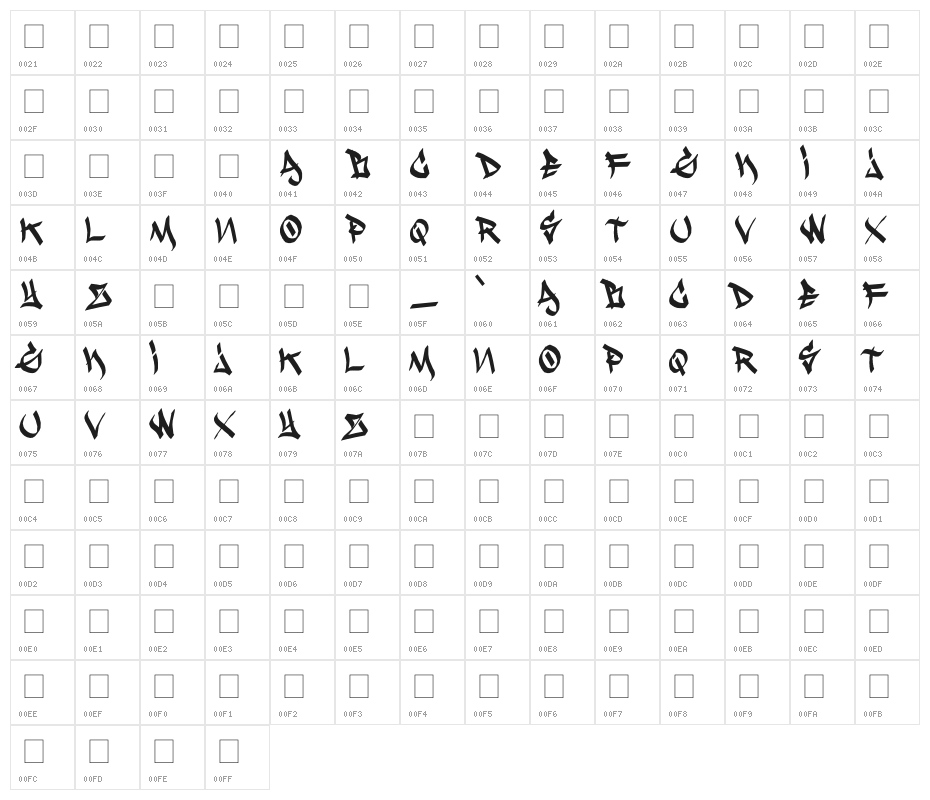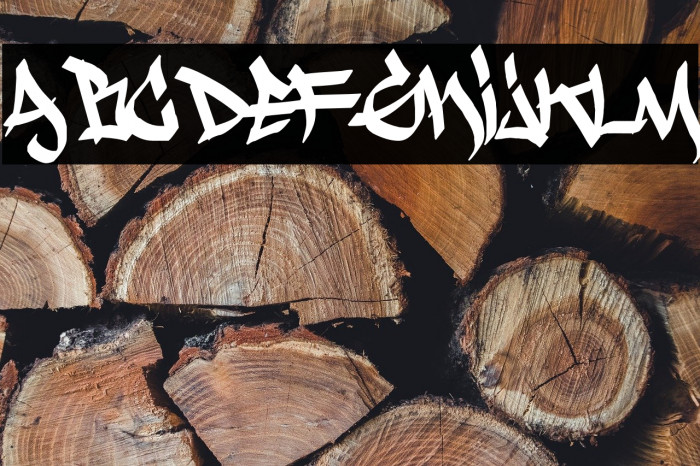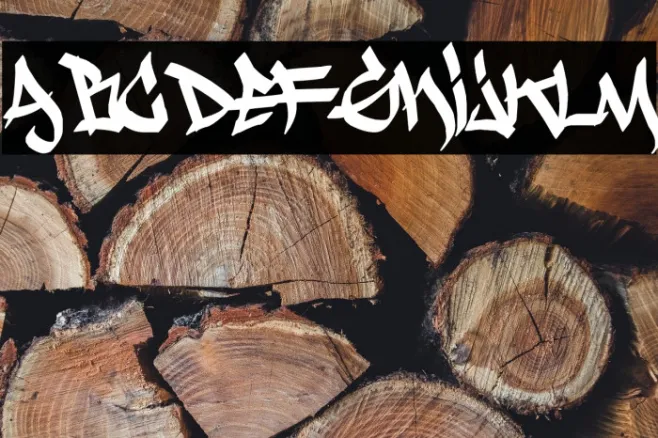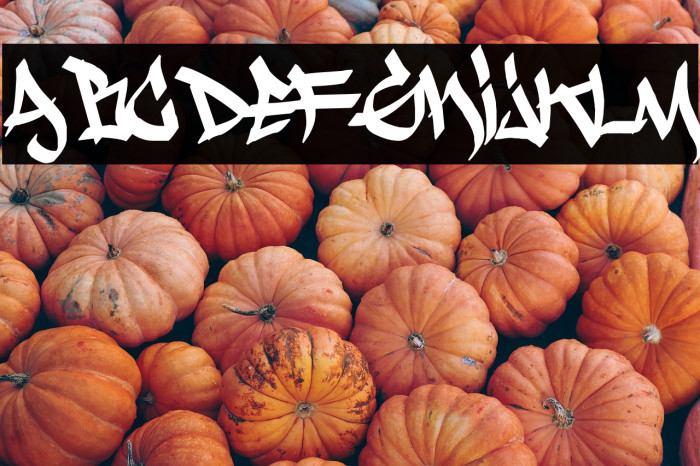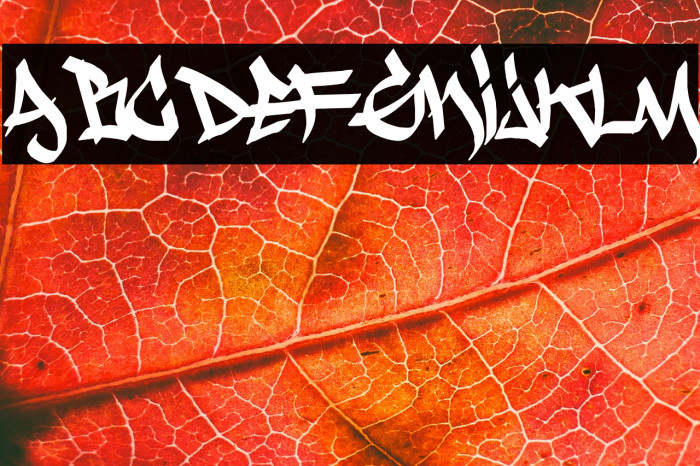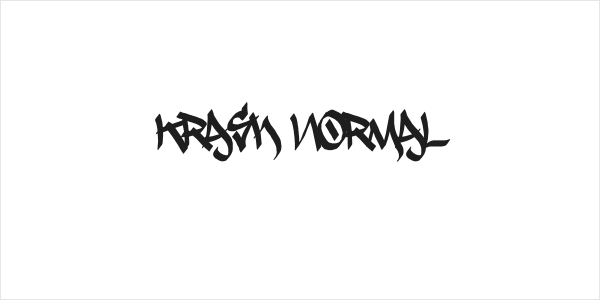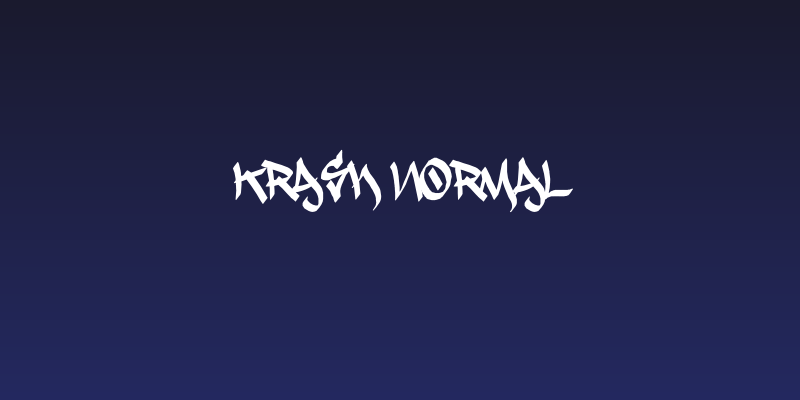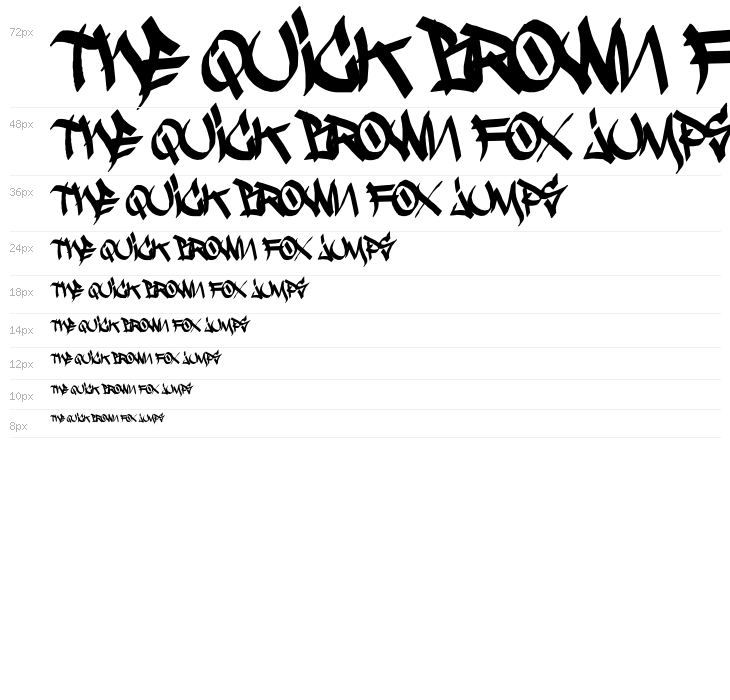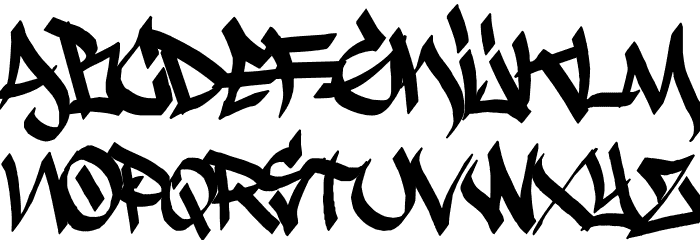
Krash Normal Font
Krash Normal Description
This font exhibits a bold, graffiti-inspired style with sharp, angular lines and a dynamic, energetic appearance. The characters are highly stylized, featuring exaggerated curves and pointed edges that give it a rebellious and urban feel. The uppercase and lowercase letters maintain a consistent design ethos, with a strong emphasis on diagonal strokes and a sense of movement. The font's unique aesthetic makes it stand out, capturing attention with its unconventional and artistic flair. It is well-suited for projects that aim to convey a sense of edginess and creativity.
| Overall Style | Modern, Urban |
| Proposed Projects | Ideal for street art designs, music album covers, urban-themed posters, and edgy branding projects. |